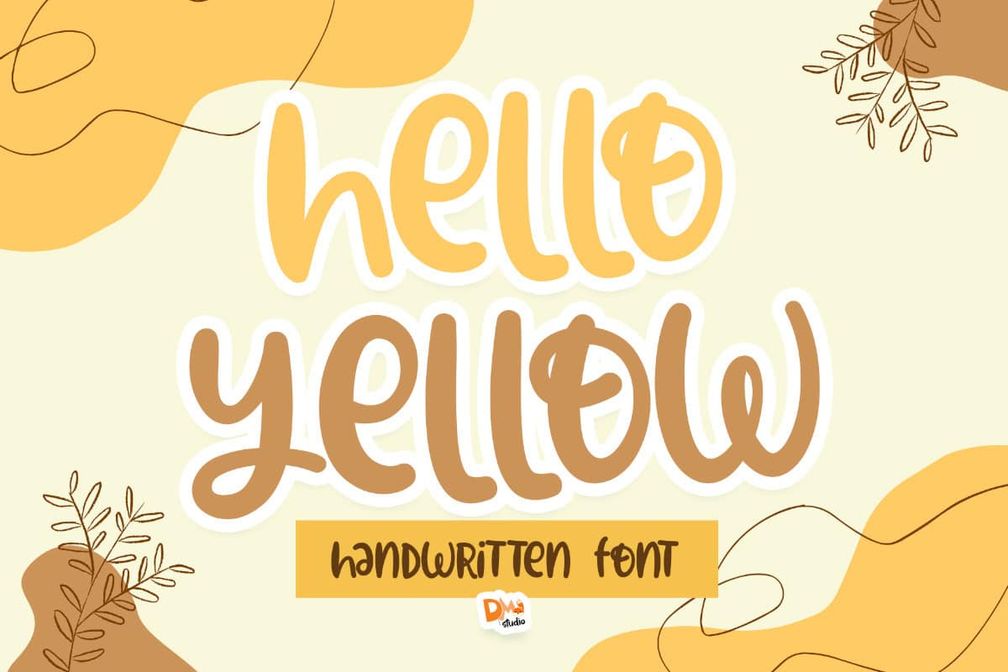
- Hello Yellow Font
Introducing Hello Yellow Font, a vibrant and cheerful typeface designed to bring sunshine to your designs. With its playful letterforms and sunny disposition, this font is perfect for a variety of projects, including branding, packaging, posters, and more. Let Hello Yellow Font brighten up your designs with its warm and welcoming personality.
- Cheerful and Vibrant Design: Hello Yellow Font features a cheerful and vibrant design that adds a sunny touch to your text.
- Versatility in Application: Ideal for a wide range of design projects, from branding to packaging, adding a warm and welcoming element to your creations.
- Uppercase and Lowercase Letters: Both uppercase and lowercase letters included for creative flexibility.
- Punctuation and Symbols: Comprehensive set of punctuation marks, numerals, and symbols for consistent and versatile use.